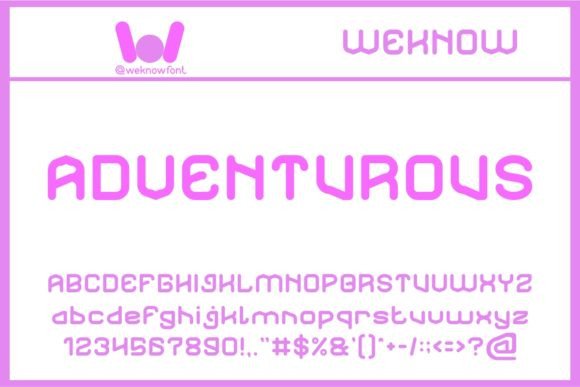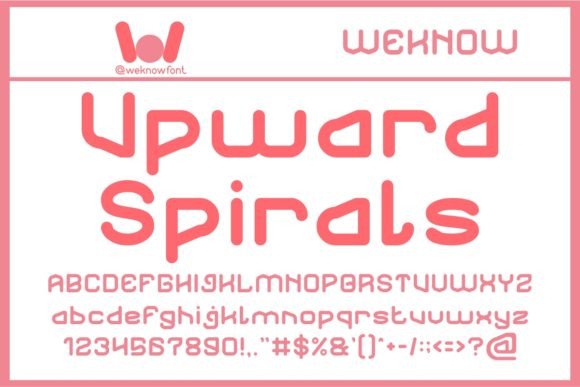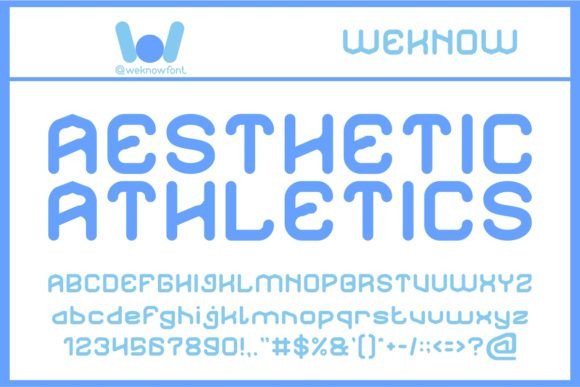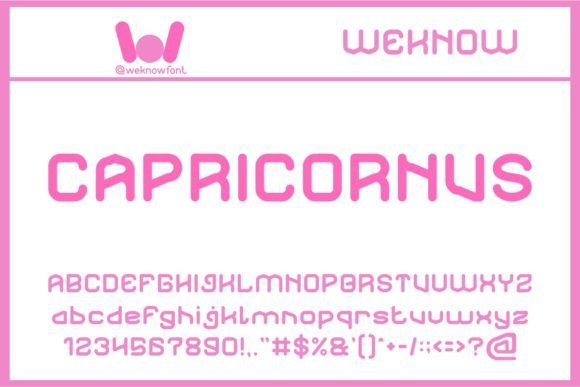
Introduction to Capricornus Font
Capricornus is a techno-sci-fi display font, suitable for a logo, logotype, headline, corporate identity, brand identity, apparel industry, poster, music, movie, game, magazine, book, comic, cartoon, YouTube, Instagram, website, or any of your creative design projects.
Capricornus is a techno-sci-fi display font, suitable for a logo, logotype, headline, corporate identity, brand identity, apparel industry, poster, music, movie, game, magazine, book, comic, cartoon,
Key Features of Capricornus Font